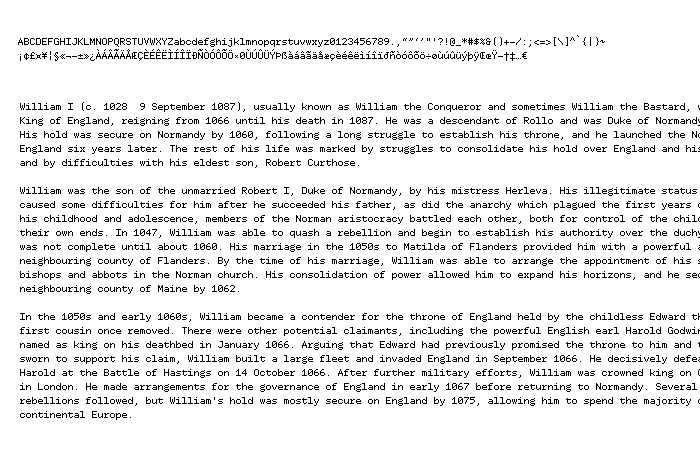
Character set and English sample text (truncated at 700 pixels). Caps height: 7px, x-height: 5px, ascenders and descenders 2-2px respectively. Letter width: 5px.
This is a wonderfully balanced monotype with an exceptional quiet gray value. Great work.
@beate: Thank you for your comment and generous rating. I don't really know what grey value is. Could you explain it, please. It took me a lot of tinkering until I got the present version.
Gray value:
In typography and graphic design, gray value is understood to be the reflected or absorbed optical color average of a monochrome typeface or a monochrome type set in the sense of light and dark, unprinted and printed, or blank and written.
From an aesthetic point of view, the gray value represents a subjective, i.e. non-objective, relation of space, area and color; it is the sum of different macro- and micro-typographic considerations and regularities. Basically, a distinction is made between the gray value of a typeface and the gray value of a typeset or facsimile.
If you close your eyes to the point where you can only see the lines of a text, you can easily see whether the dicts is even, i.e. which glyphs are too strong or too light compared to each other. Often Kk, Mm, Ww... appear too strong, especially in monotypes…
Yes, I'm sure you do. It takes a lot of skill and the right proportions to achieve this result.
@beate: Thank you for your elaborate explanation. I didn't know that squinting was so useful. I just did instinctively.